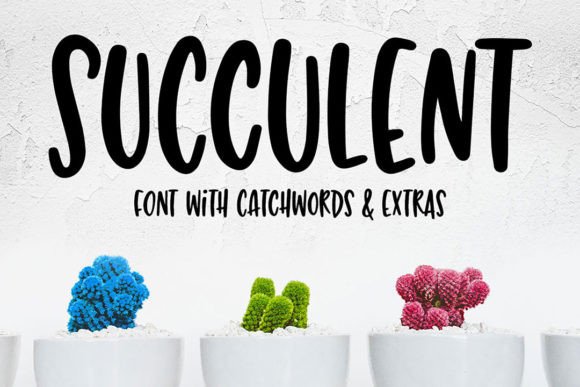
Introducing Succulent Font, a whimsical and playful addition to your collection! Created by GeekMissy, this script font is perfect for all your cute and creative projects. Let us tell you why Succulent is a must-have font for anyone looking to add a touch of fun and personality to their designs.
First and foremost, Succulent is a double-uppercase font that brings a unique and eye-catching element to your typography. Its tall and skinny letters have a delightful bounce, making every word come alive with energy. Whether you're designing invitations, greeting cards, or even branding materials, Succulent will instantly captivate your audience.
But Succulent doesn't stop there. With the purchase of this font, you also get Succulent Catchwords - a collection of small words like "THE," "AND," "OF," and many more. What sets these catchwords apart is that they are not only available in English but also in Spanish, French, German, and Portuguese. Now you can effortlessly add a touch of international flair to your designs and connect with a wider audience.
As an added bonus, the Succulent Catchwords file includes thirteen repeating patterns. By simply typing a letter a few times, you can create stunning borders that will make your designs stand out from the crowd. Consult the handy PDF guide that comes with your download to explore the variety of patterns and catchwords available.
Succulent also boasts an extensive character set, with over 350 extended characters from various Latin character sets. This means you have unparalleled language support at your fingertips, making it easier than ever to create designs in different languages and cater to diverse audiences.
In summary, Succulent Font is a font that brings joy and playfulness to your designs. Its double-uppercase letters, international catchwords, and repeating patterns offer endless creative possibilities. Don't miss out on this opportunity to elevate your designs and connect with a broader audience. Download Succulent Font today and let your creativity flourish!